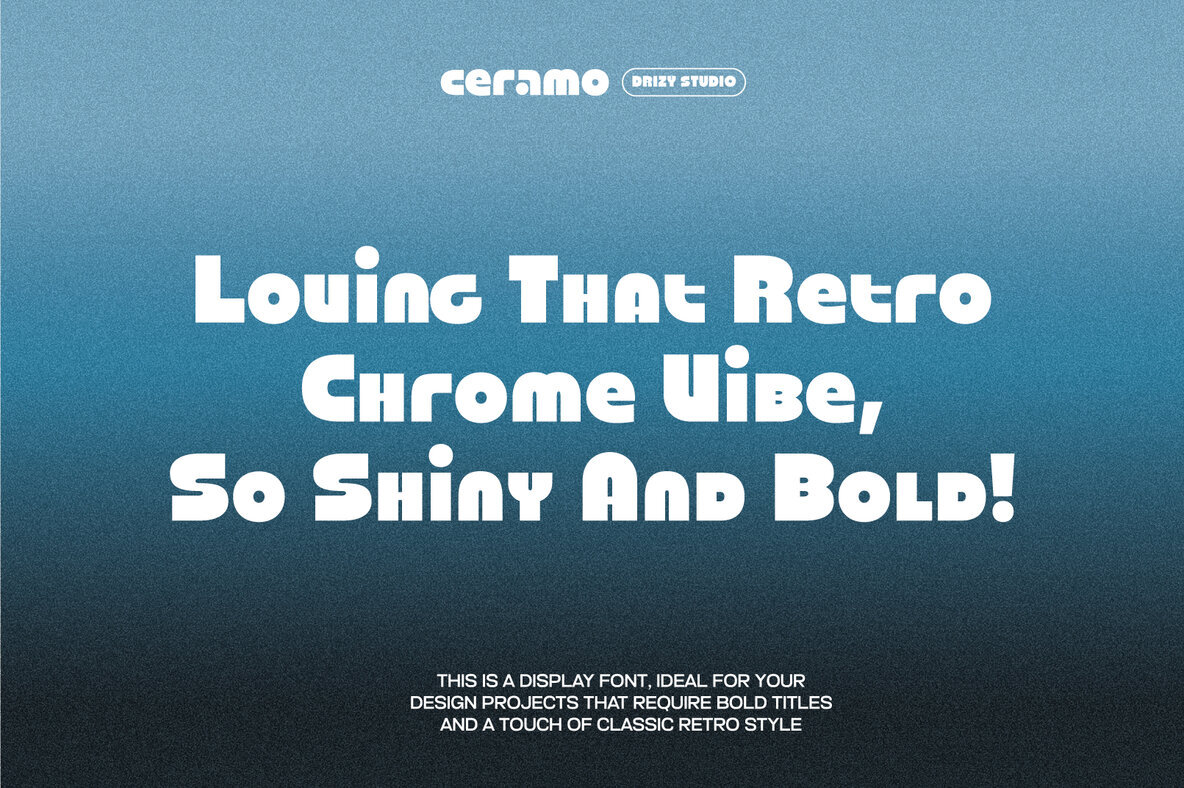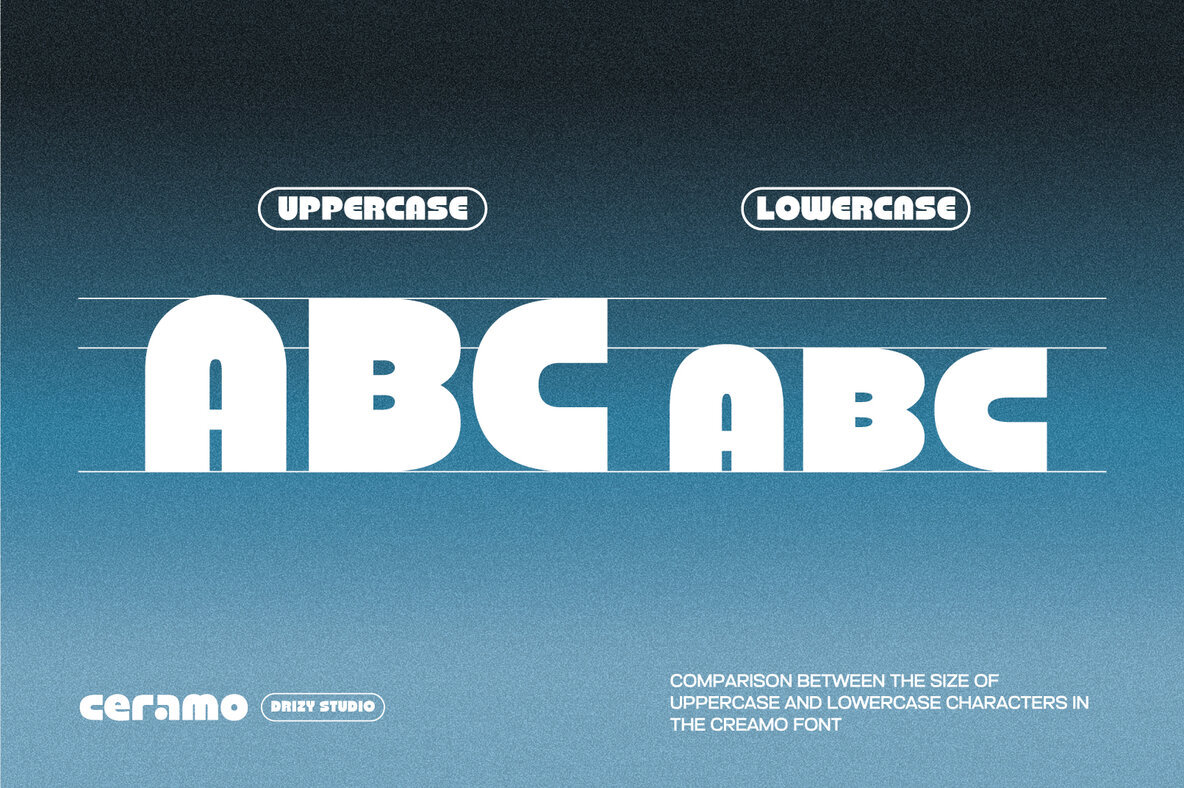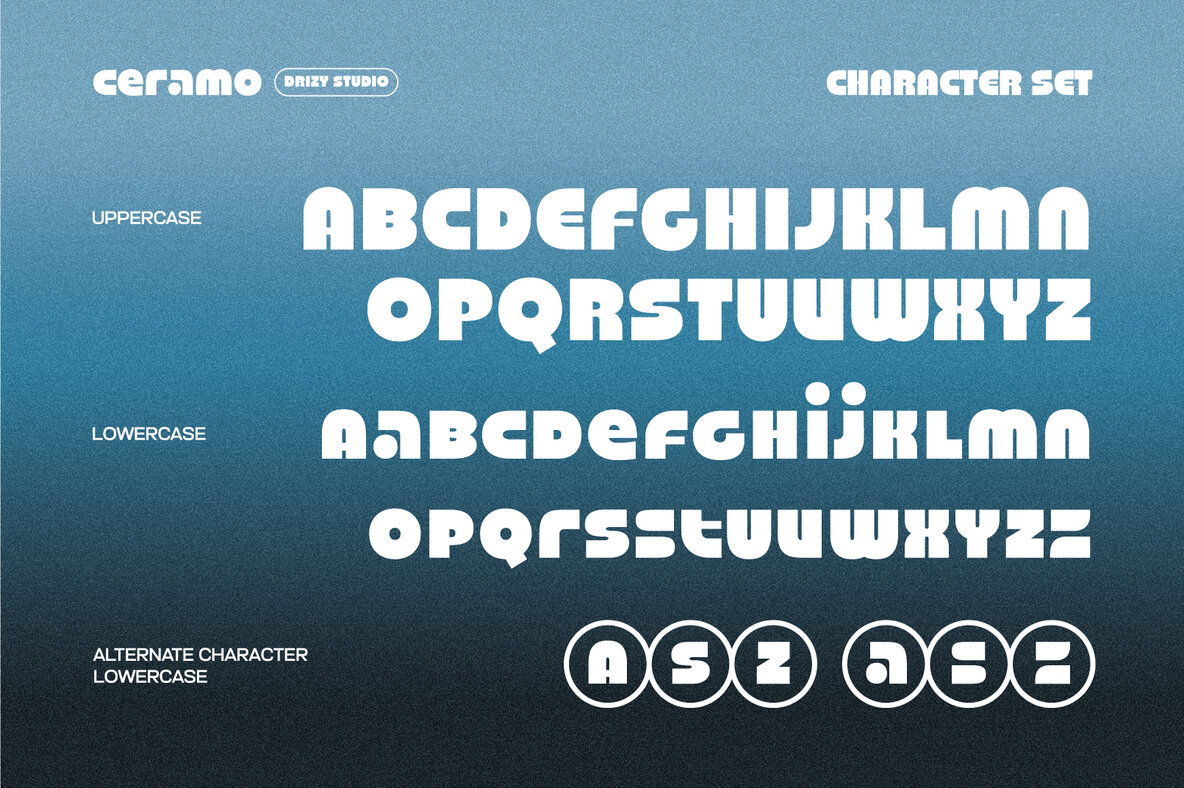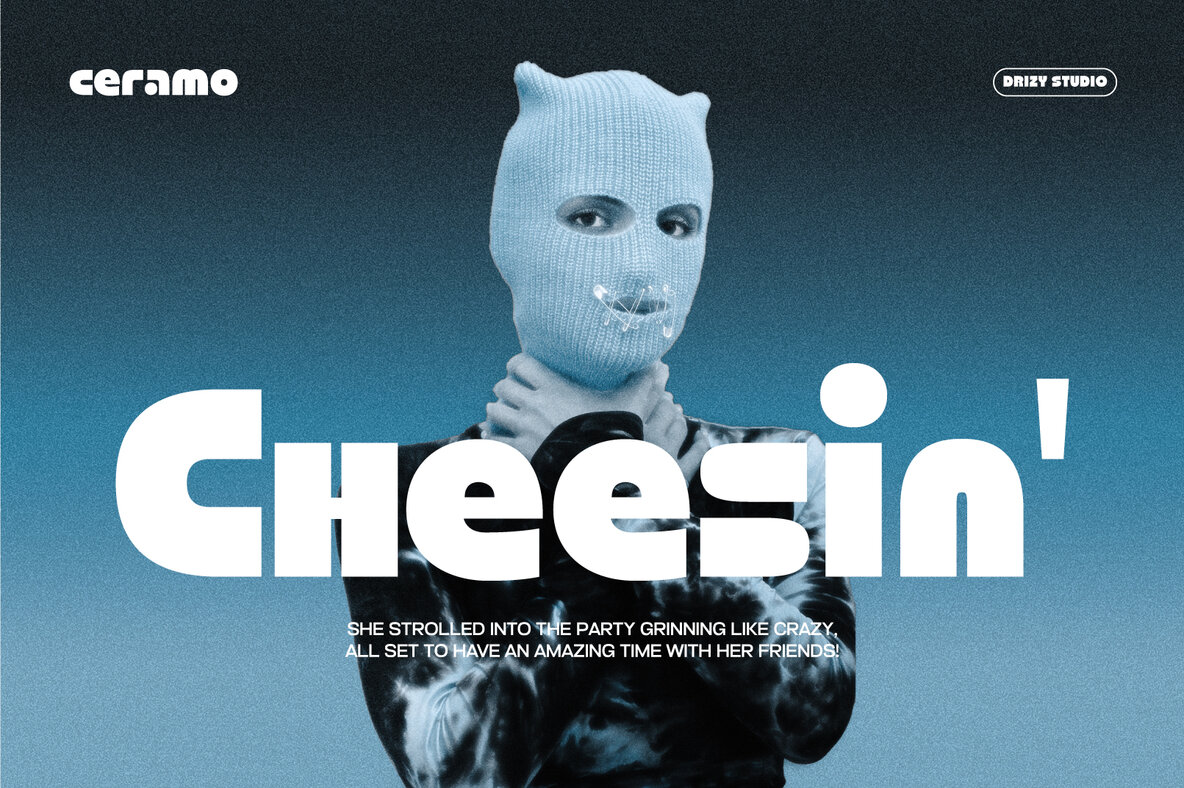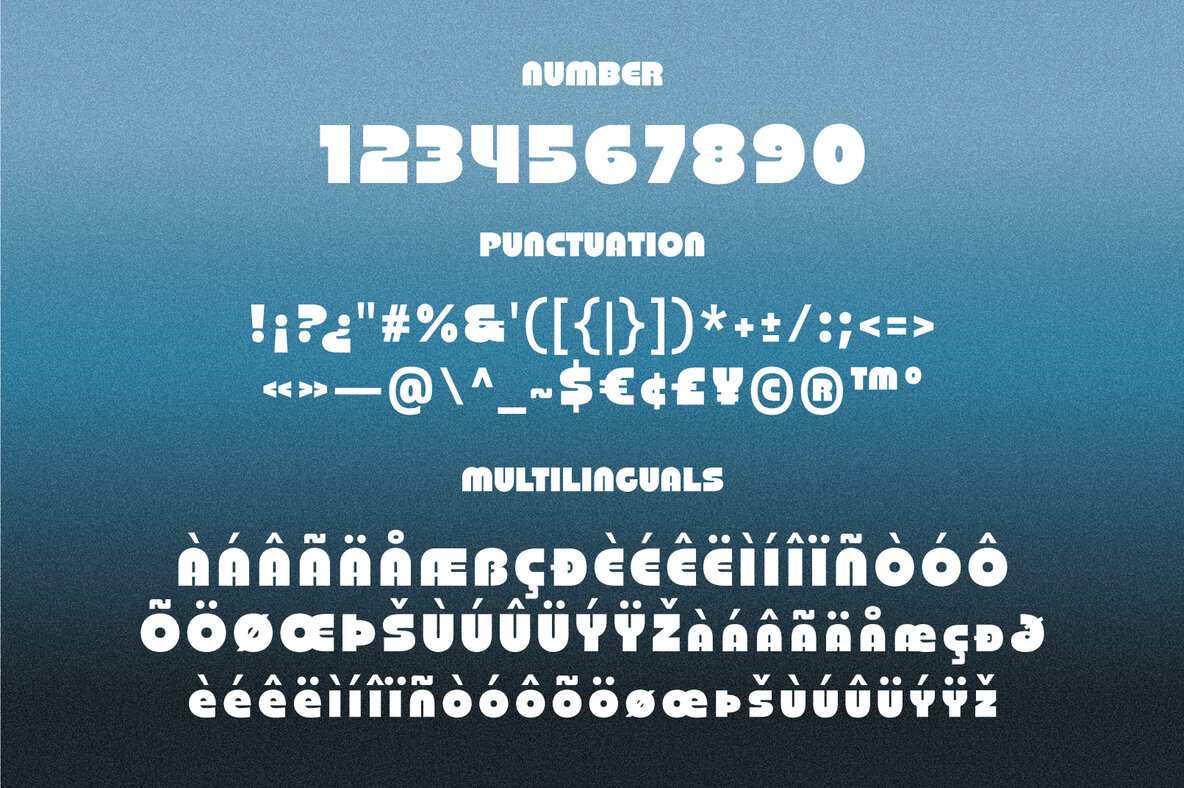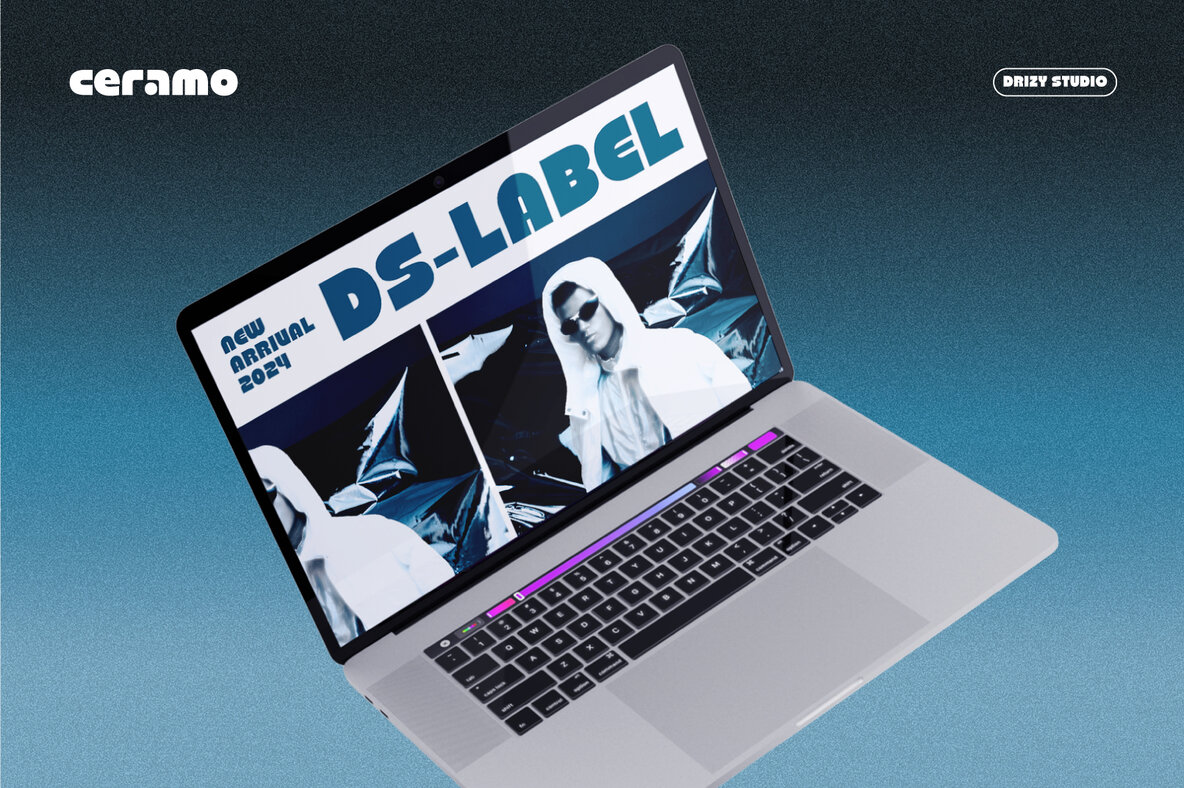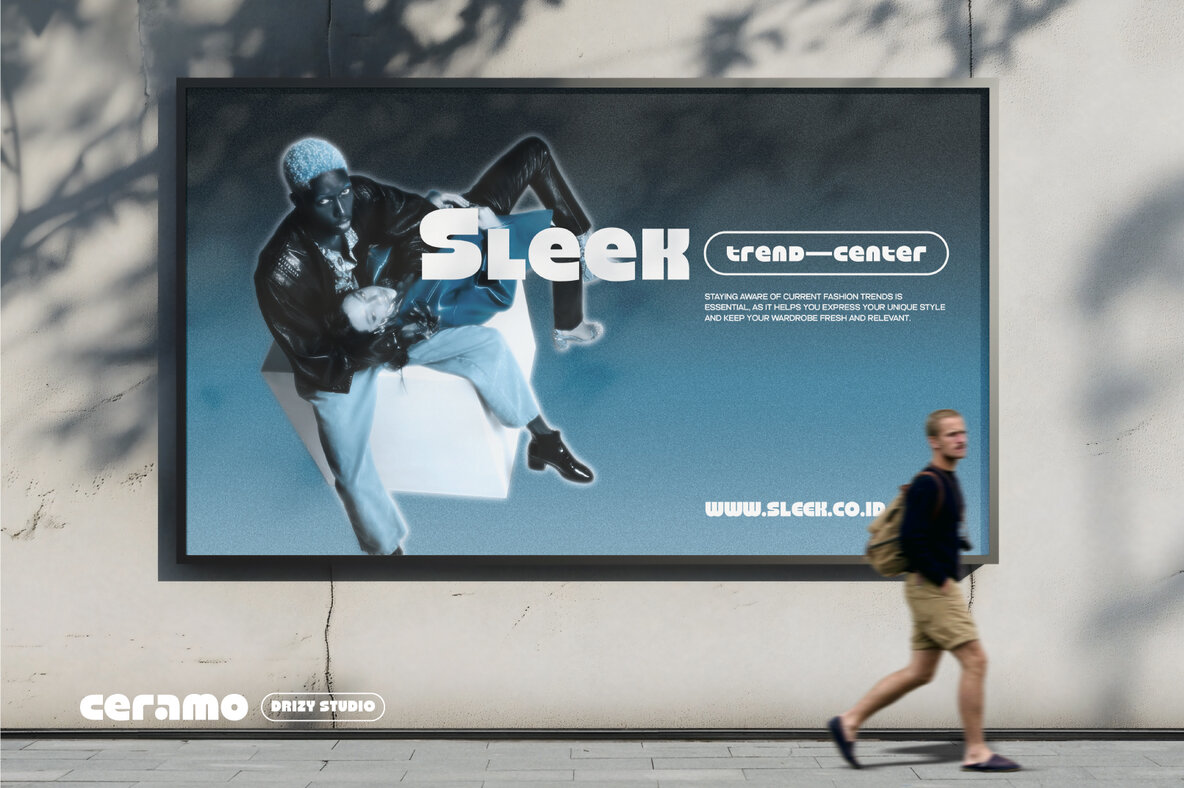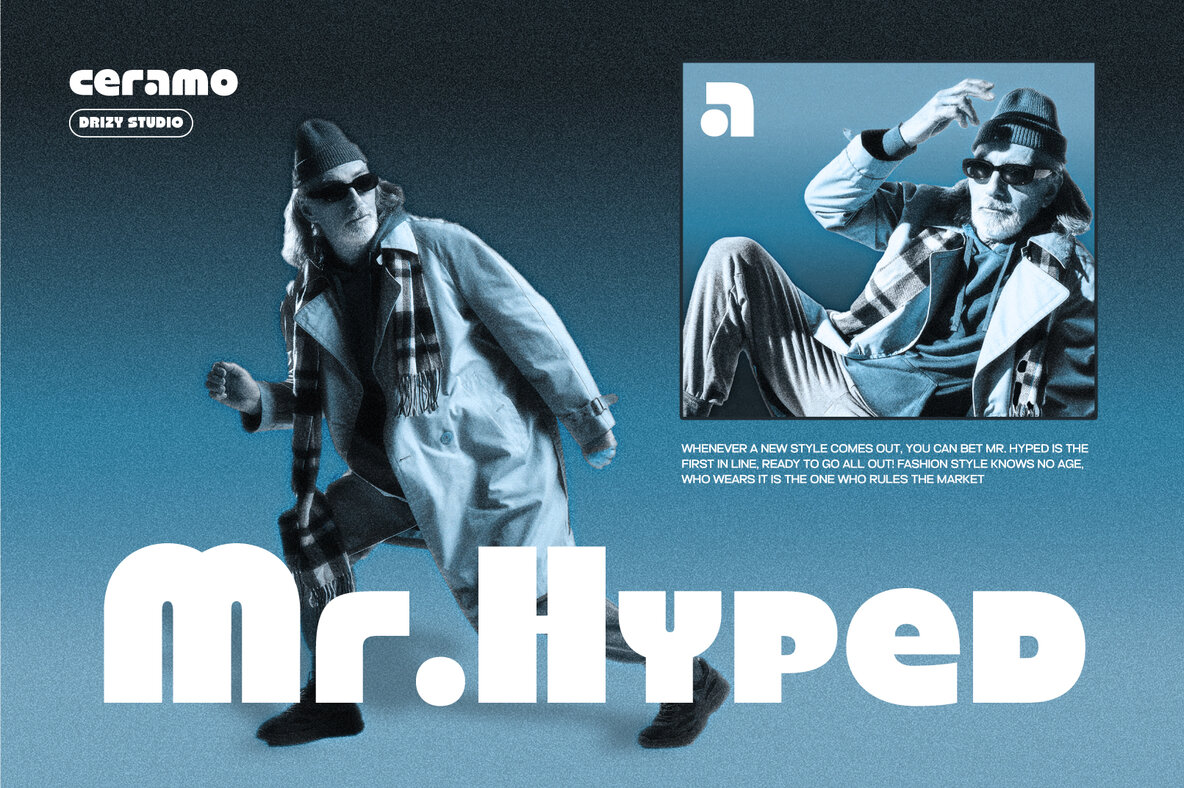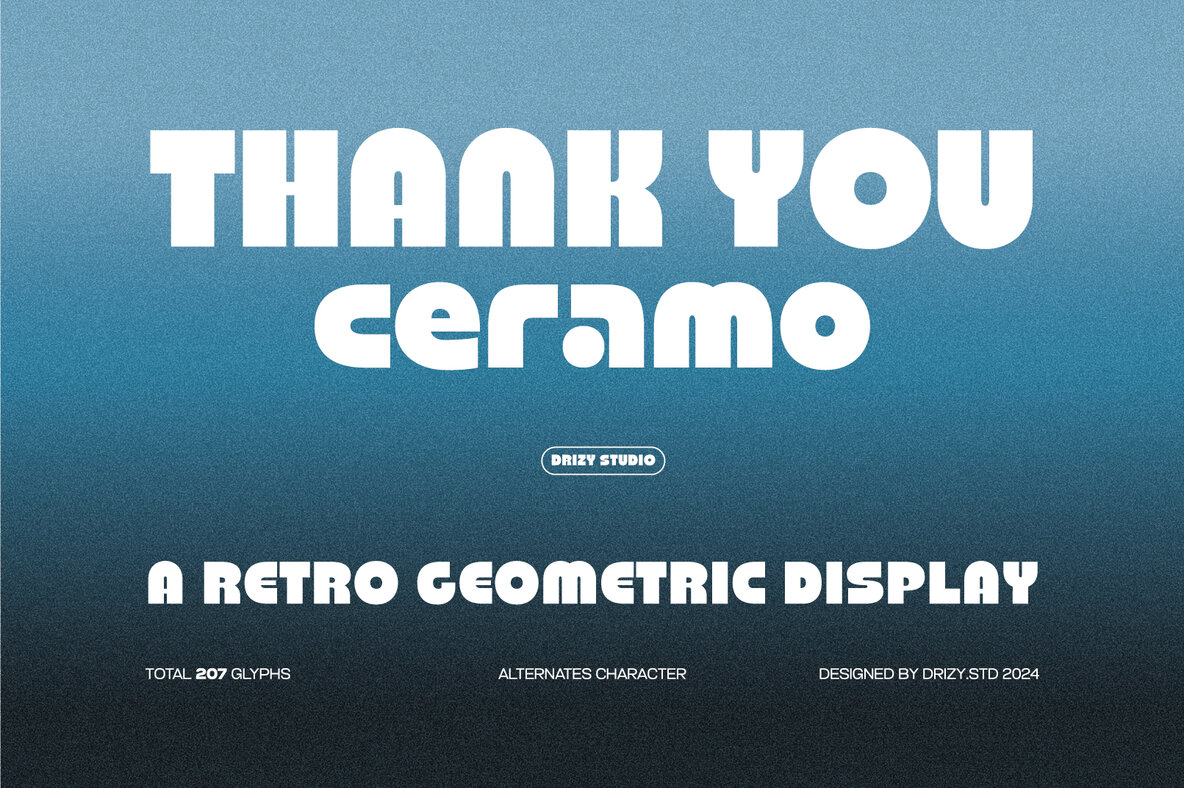
Ceramo Font
Ceramo Regular
Ceramo is a bold, eye-catching font that marries retro aesthetics with a modern geometric flair. Its sharp lines and dynamic shapes are perfect for brands aiming to incorporate nostalgic yet cutting-edge elements into their visual identity. Ideal for Winter Streetwear collections, Ceramo infuses a vintage-inspired vibe while maintaining a contemporary freshness suitable for the season. Its design evokes a sense of movement, making it an excellent choice for those looking to infuse their brand with a stylish, edgy character.
Featuring a versatile character set, Ceramo includes both uppercase and lowercase letters, punctuation, numbers, and supports multilingual use. Additionally, it offers alternate characters for "a," "s," and "z," providing further flexibility in design. This unique combination of features makes Ceramo an ideal choice for designers looking to craft distinct and engaging typography. Ceramo's intriguing geometric aspects ensure your work stands out in any design context, especially in fashion-forward projects.